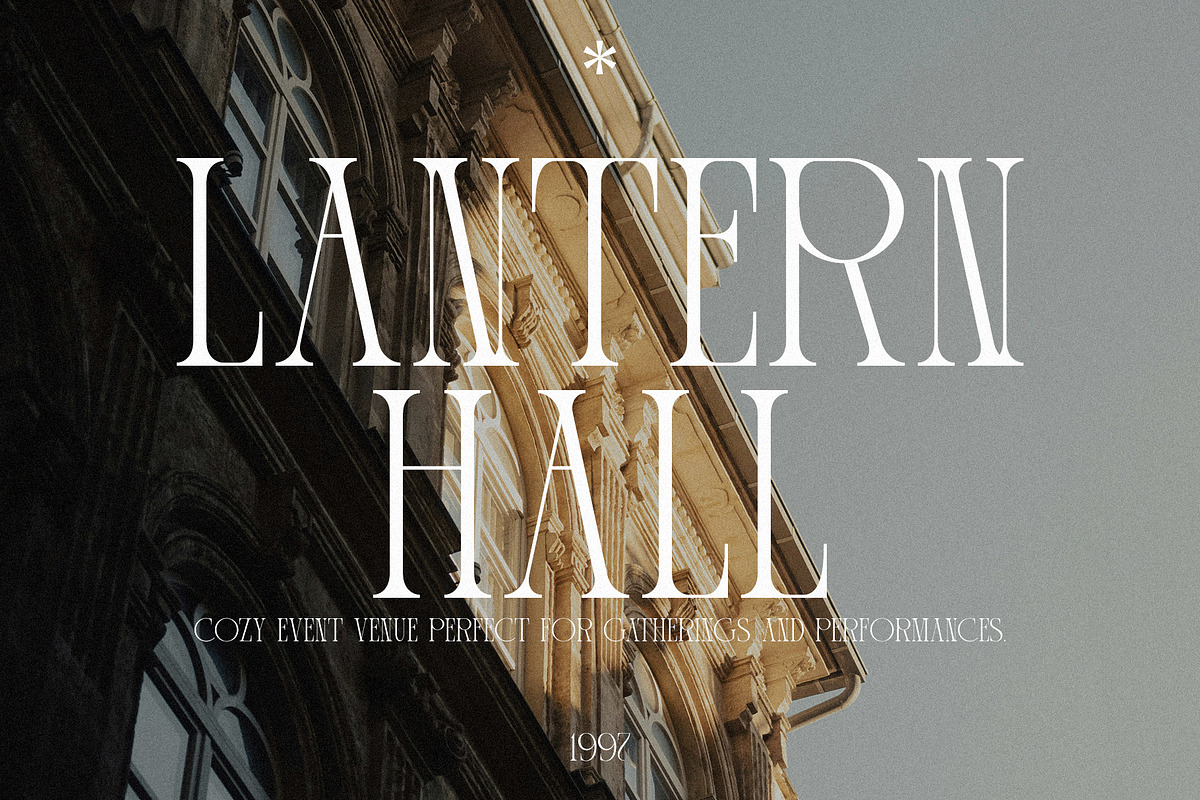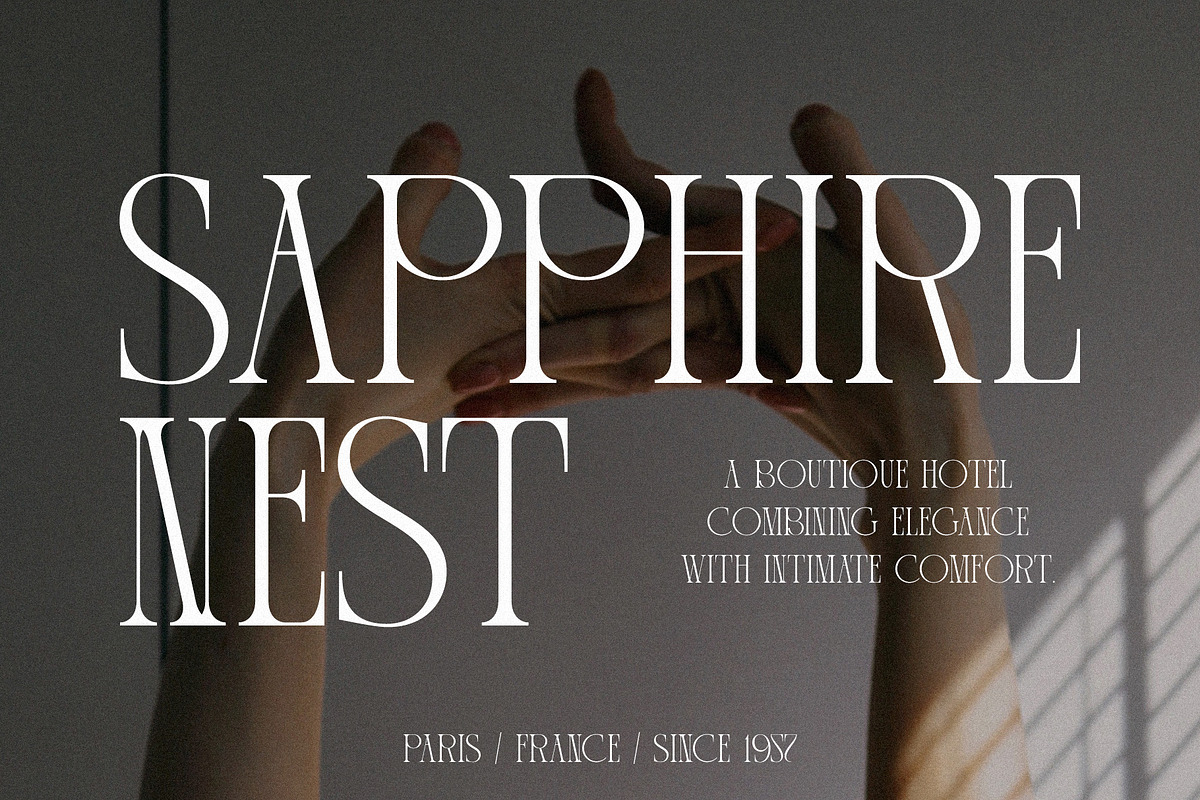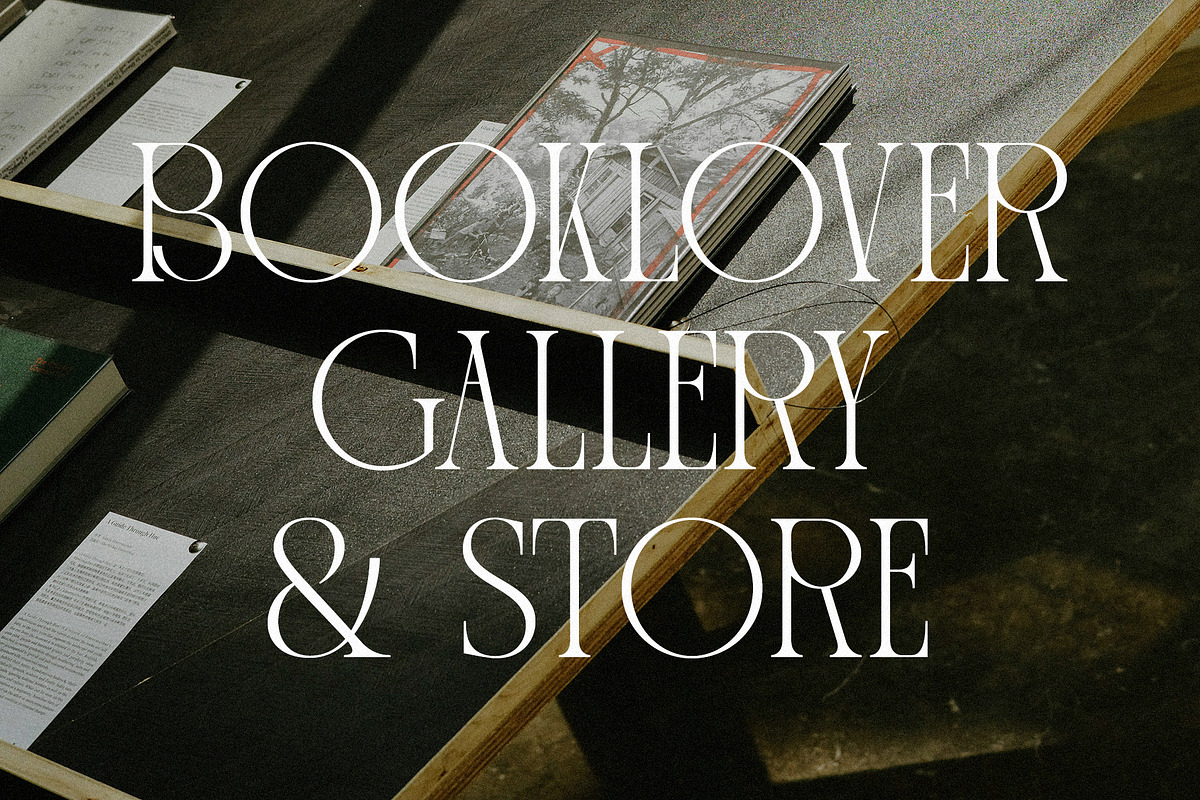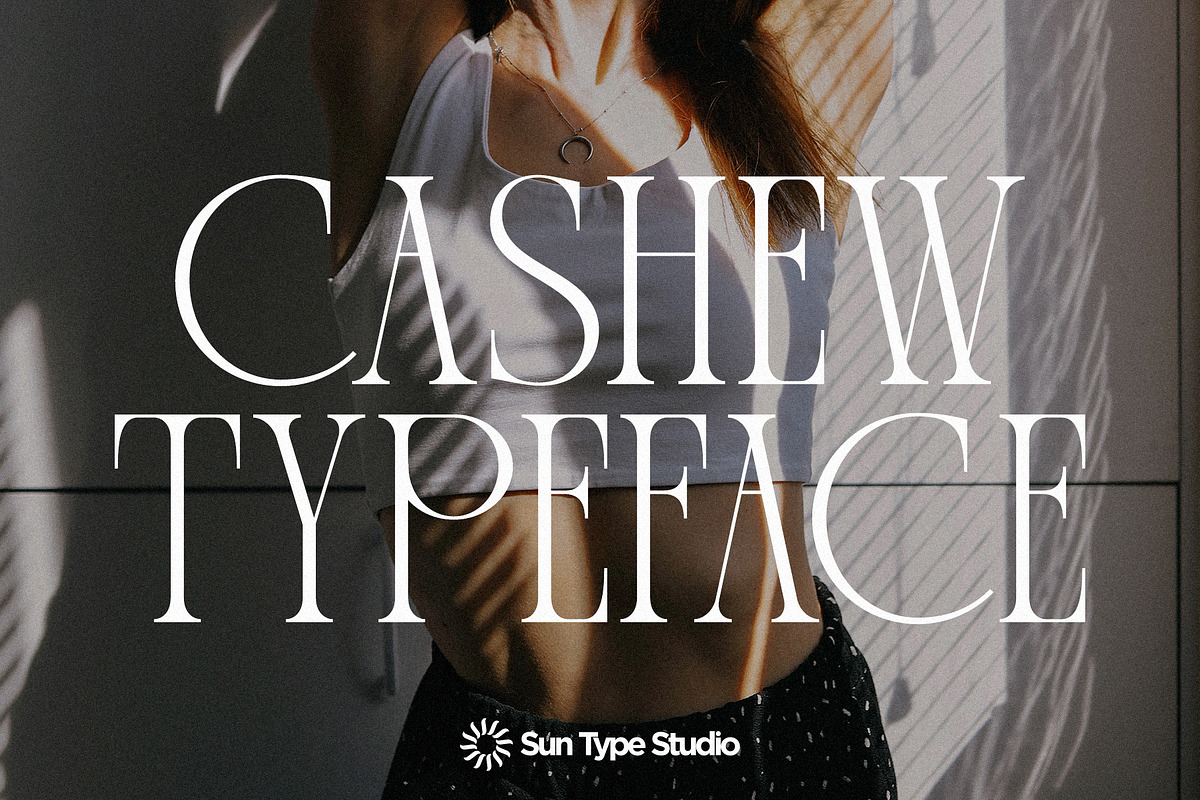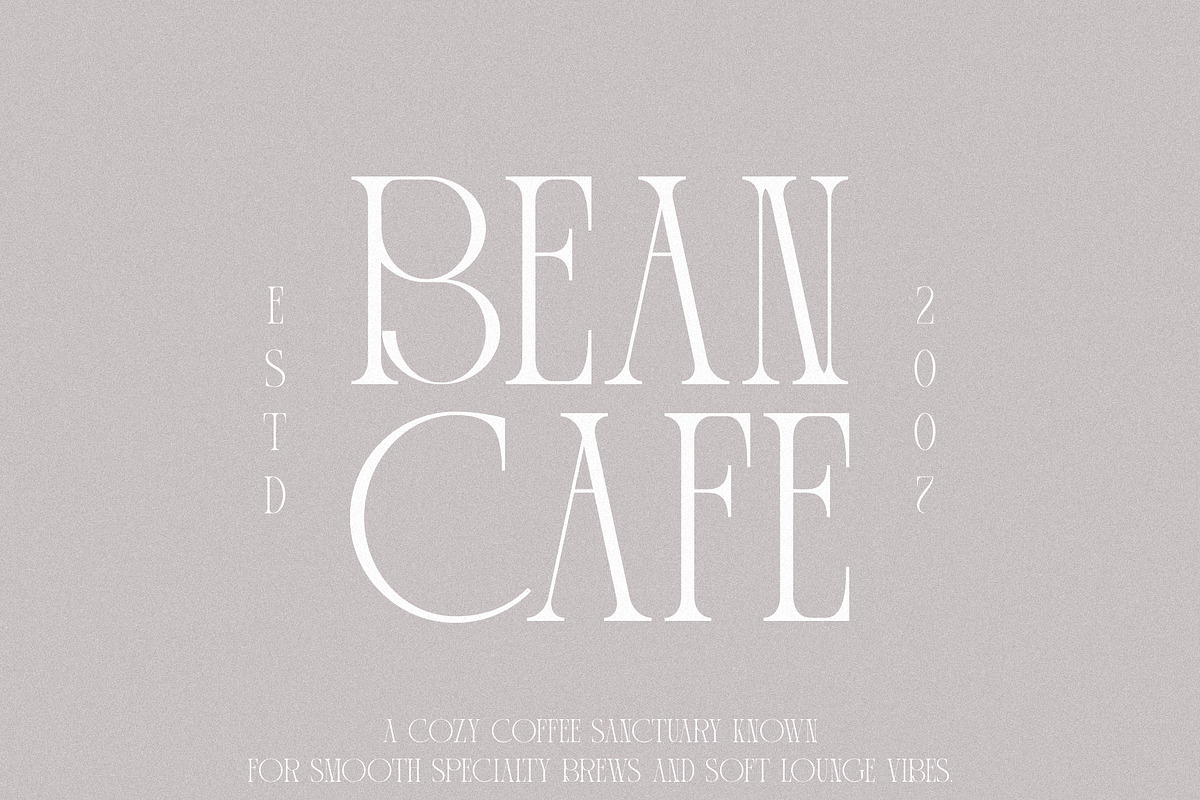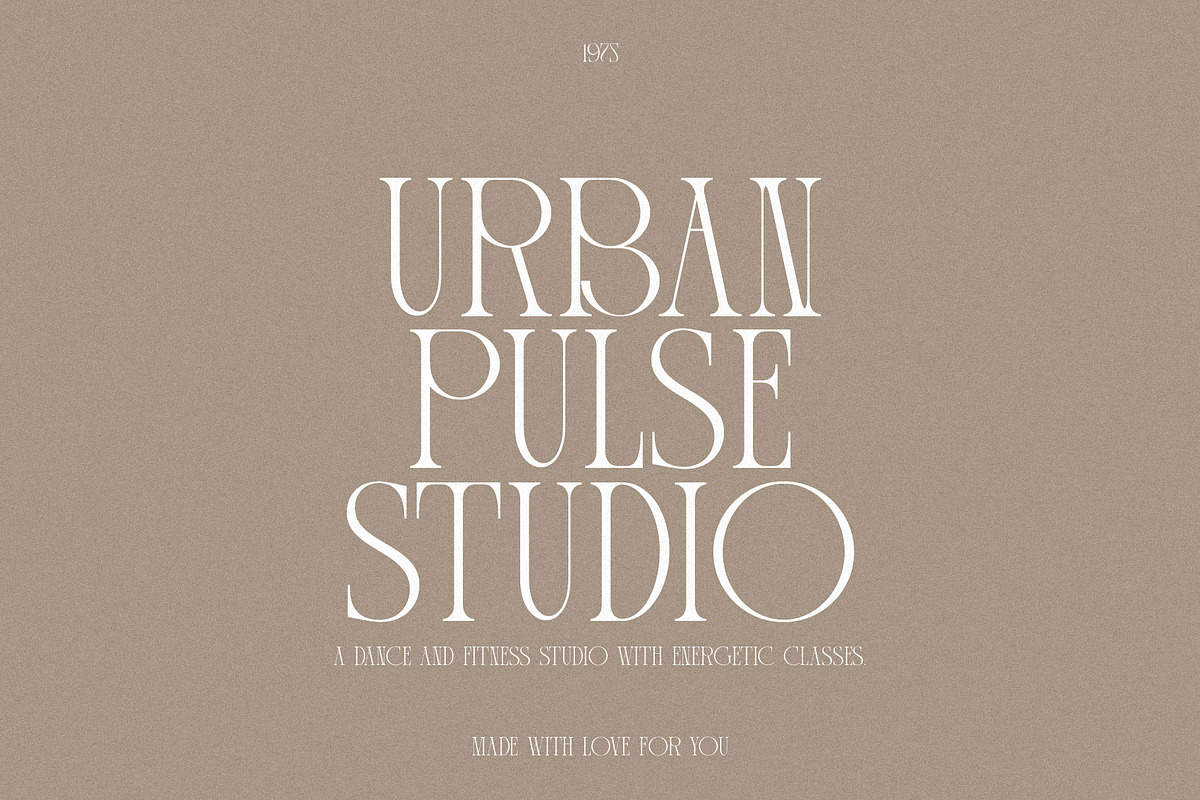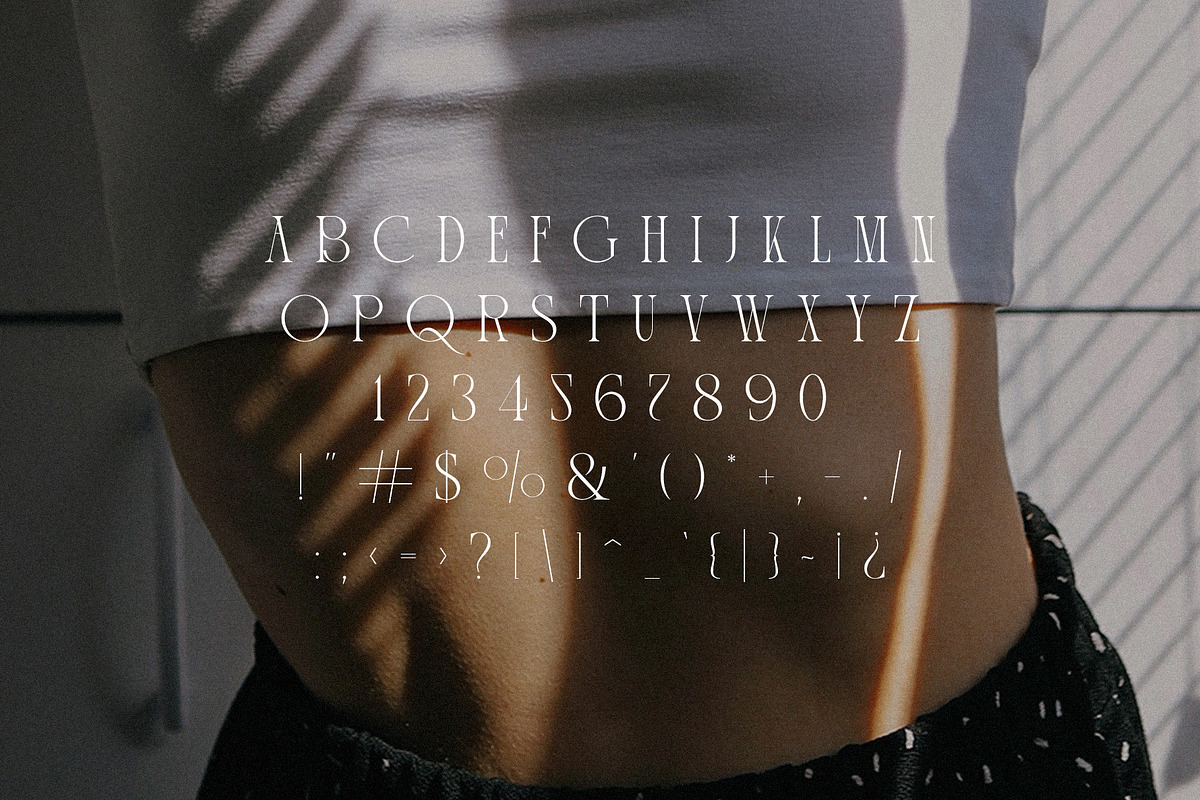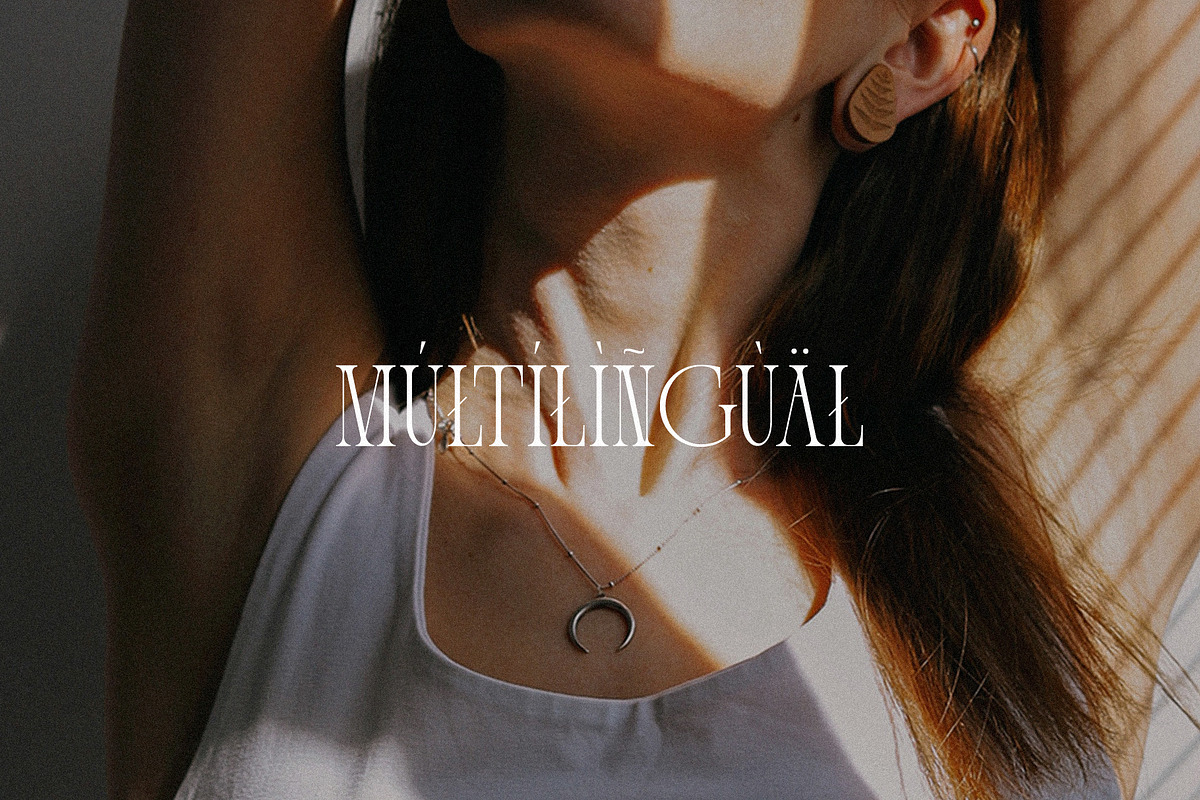
Cashew - Elegant Serif
Cashew – Elegant Condensed Serif is a sophisticated serif typeface designed to bring elegance and clarity to modern typography. With its slim condensed structure and refined serif details, Cashew delivers a perfect balance between classic beauty and contemporary style. Ideal for fashion branding, editorial design, magazine titles, logos, and high-end packaging, Cashew adds a graceful and luxurious touch to any project while maintaining excellent readability in display settings.